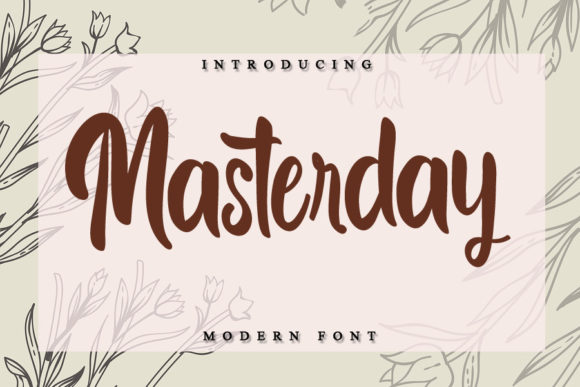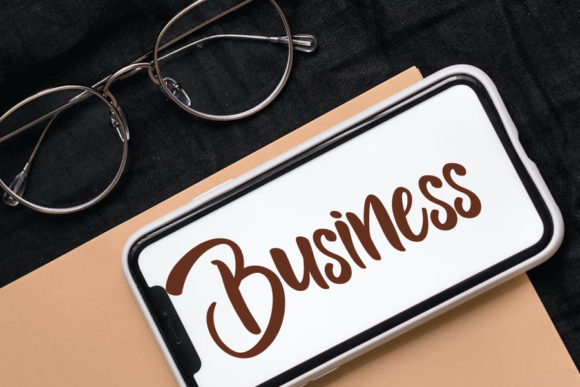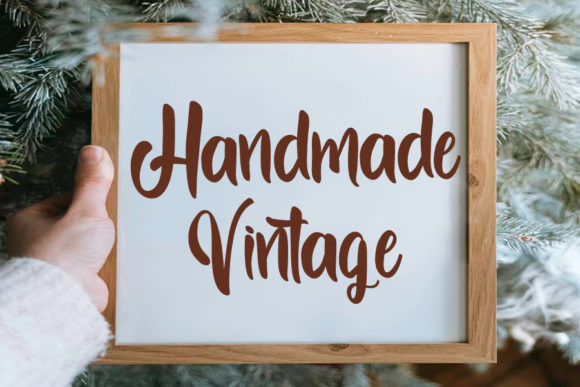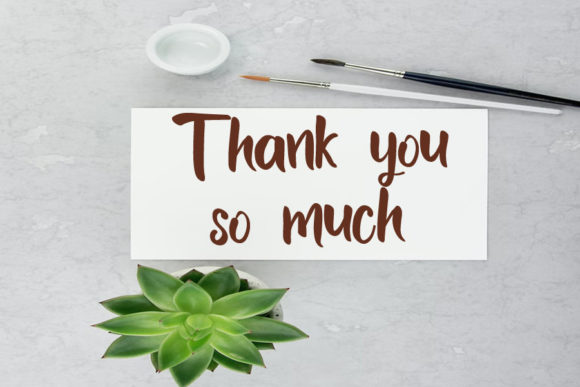
Masterday Font
About Masterday Font
Masterday is a fresh and beautiful font that brings a unique style to your design projects. Its simplicity and uniqueness make it a perfect choice for a variety of applications. Whether it’s for YouTube banners, cover logo mockups, wedding invitations, ID cards, flyers, or crafts, Masterday is sure to impress.
The charm of Masterday lies in its ability to add a personal and fresh feel to any design. Its beautiful style can bring a sense of elegance and sophistication to your designs, making them more engaging and appealing to the audience.
Moreover, using Masterday can contribute to the progress and development of your business. Its fresh and beautiful design can easily be matched to a large set of projects. Whether you’re designing a logo, creating a banner, designing invitations, or crafting a flyer, Masterday can help you make a lasting impression.
In conclusion, Masterday is more than just a font. It’s a design tool that can add a touch of freshness and beauty to your designs. Its unique style and versatility make it a valuable asset for any designer. So, why wait? Incorporate Masterday into your design today and witness the transformation. Experience the difference that a truly fresh and beautiful font can make. Experience Masterday.
With Masterday, you’re not just choosing a font. You’re choosing a font that will make your design stand out, a font that will add character to your text, and a font that will leave a lasting impression on your audience. Choose Masterday, and let your design speak for itself.
So, if you’re looking for a font that’s fresh, beautiful, and has aesthetic value, look no further than Masterday. It’s the perfect font for any design project, and it’s sure to make your design stand out. Try Masterday today, and see the difference it can make in your design.